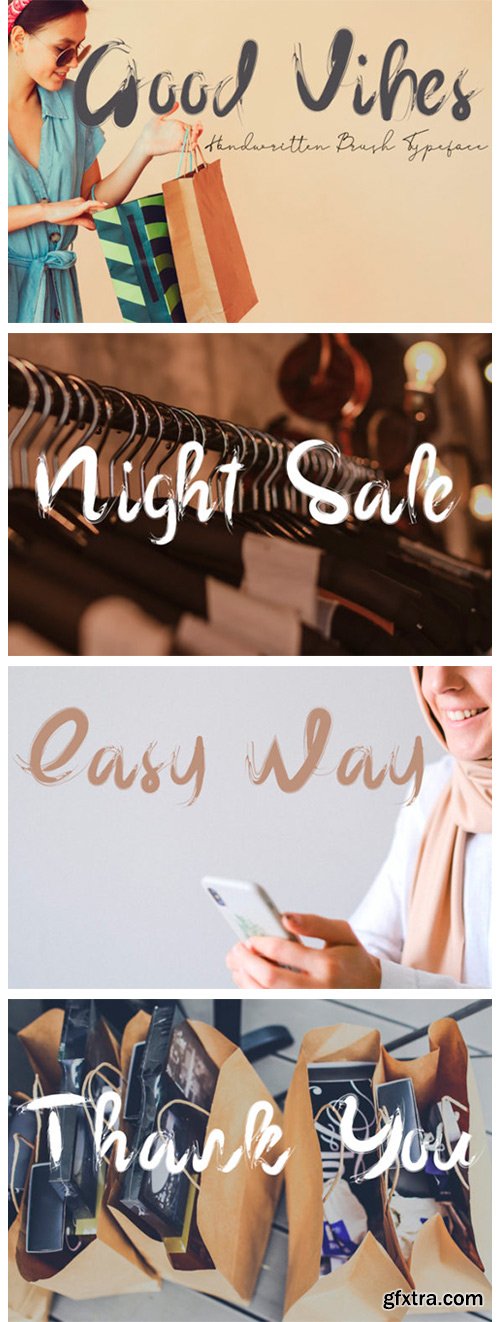
Good Vibes Font
Good Vibes results out of a stunning pairing of a brush pen and pencil that makes it look incredibly endearing and authentic. Use this gorgeous and unique handwritten font to bring any DIY project to life!